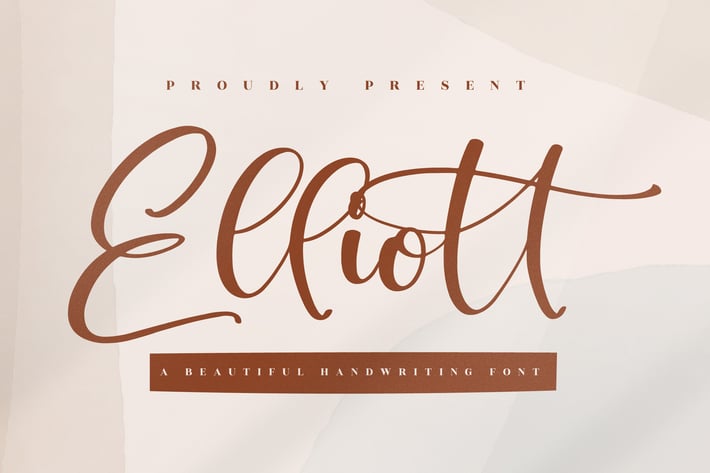
Elliot Handwritten Font
Elliott is a smooth, flowing handwritten script that balances elegance with warmth. Its graceful curves, natural letter connections, and gentle contrast make it a versatile choice for both digital and printed projects. Whether you’re crafting brand visuals, heartfelt cards, or standout social posts, Elliott delivers legible beauty with a modern, friendly feel.
+ Natural handwritten script with smooth baseline
+ Alternates & standard ligatures for more organic words
+ Swashes on select characters for extra flair
+ Numerals, punctuation & symbols included
+ Multilingual support (basic Latin)
+ Optimized kerning & clean vectors for crisp print
+ Branding, logos & packaging
+ Wedding suites & invitations
+ Social media graphics & quotes
+ Business cards & stationery
+ Lifestyle blogs, headers & banners
+ Product labels and promo materials
Write it beautifully—Elliott turns every word into a keepsake.